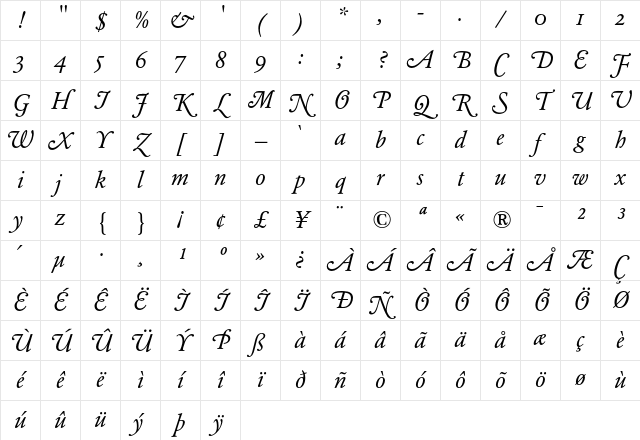
Garamond BE Swash Italic
Style: Swash Italic
Garamond BE Family
Complete Garamond BE Swash Italic glyph index. Displaying only characters natively supported by Garamond BE Swash Italic font.
Design Context for Garamond BE
Garamond BE flows with the natural rhythm of handwritten lettering, making it ideal for designs that call for warmth and personal expression.
Font Pairing: Combine Garamond BE with a simple geometric sans for maximum contrast - the tension between flowing curves and clean structure is a classic typographic pairing.
Pro Tip: Use Garamond BE for short runs of text - names, titles, or taglines. Extended body copy in script faces tires the eye quickly.